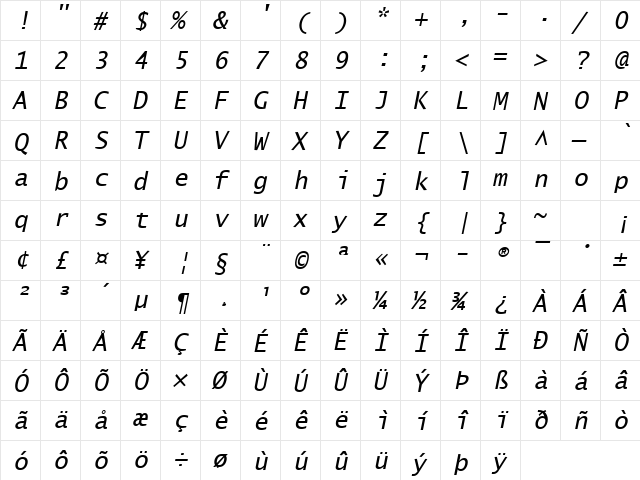
Tangerine 4 Oblique Font Preview
Tangerine 4 Oblique
Tangerine 4 Oblique Font Details
| Style | Oblique |
Design Context for Tangerine 4 Typeface
Tangerine 4 takes a measured approach to typography — its balanced proportions and neutral character make it a reliable workhorse for both digital and print work. Its italic angle brings a sense of urgency and motion to the letterforms.
Pro Tip: Try Tangerine 4 for annotation and caption copy alongside an upright companion — the contrast in angle creates a dynamic but ordered typographic system.